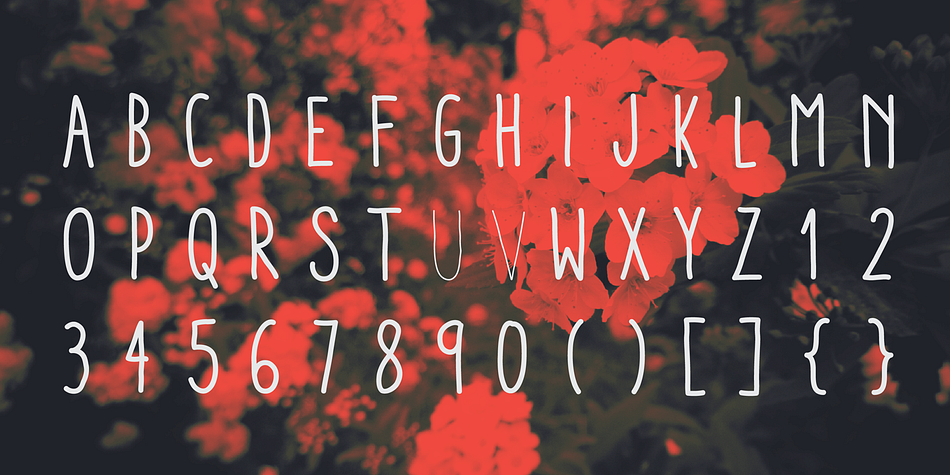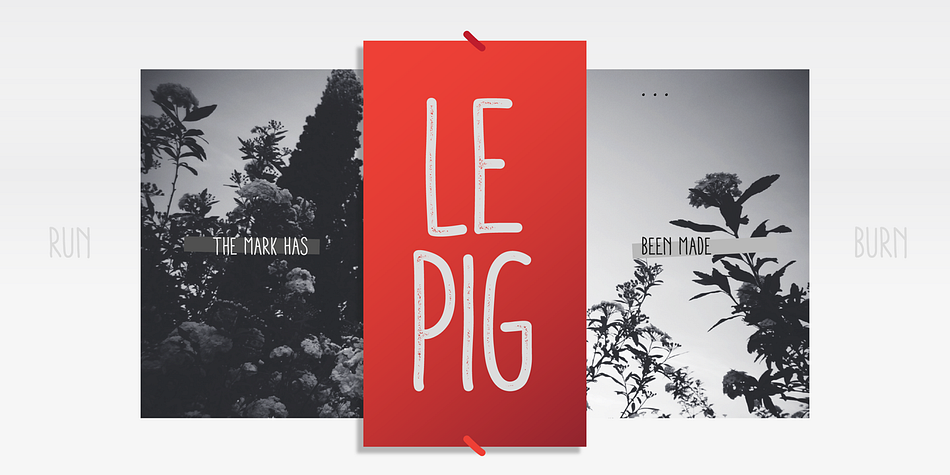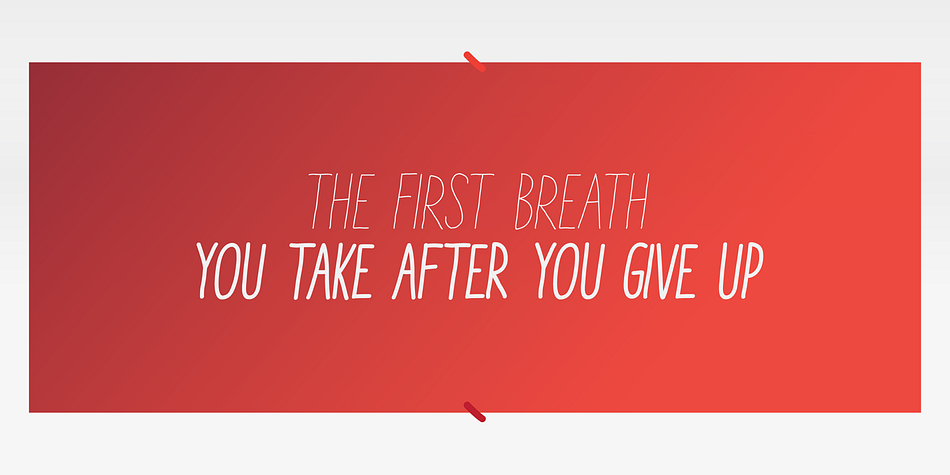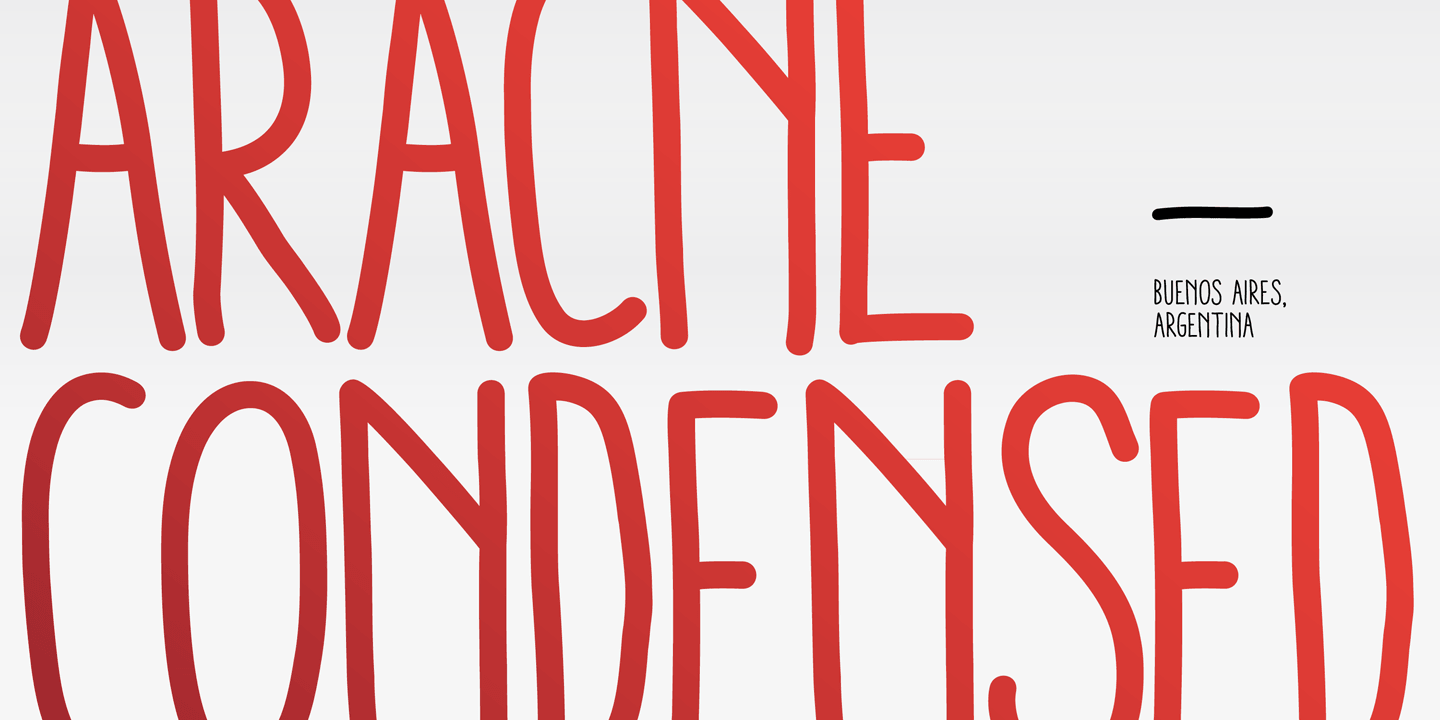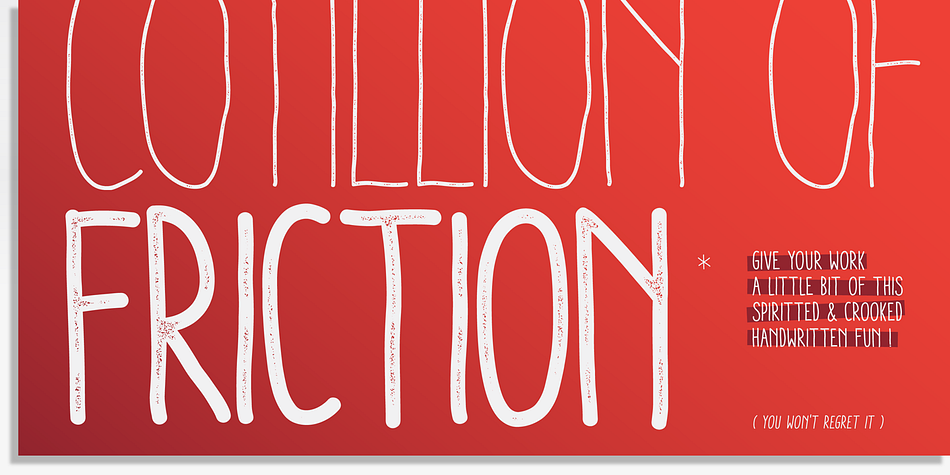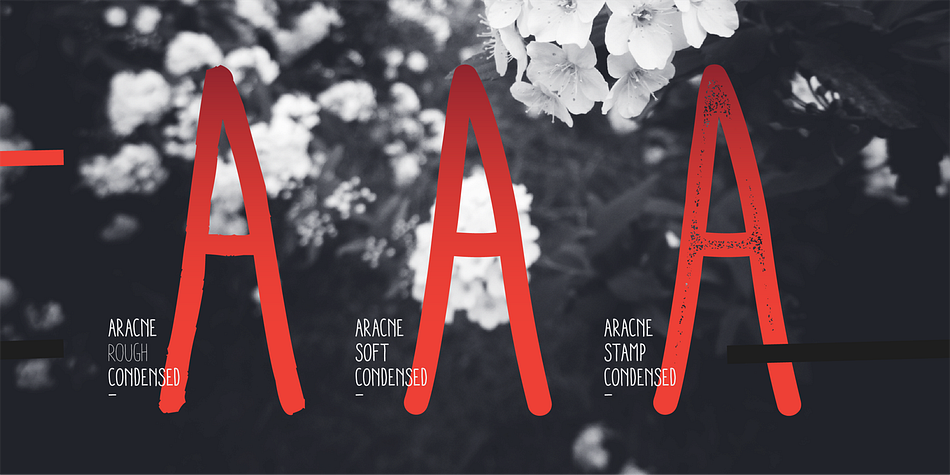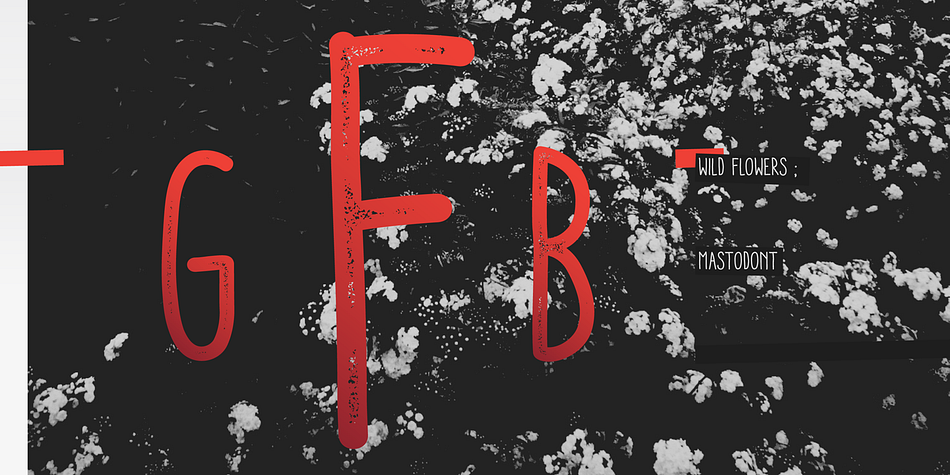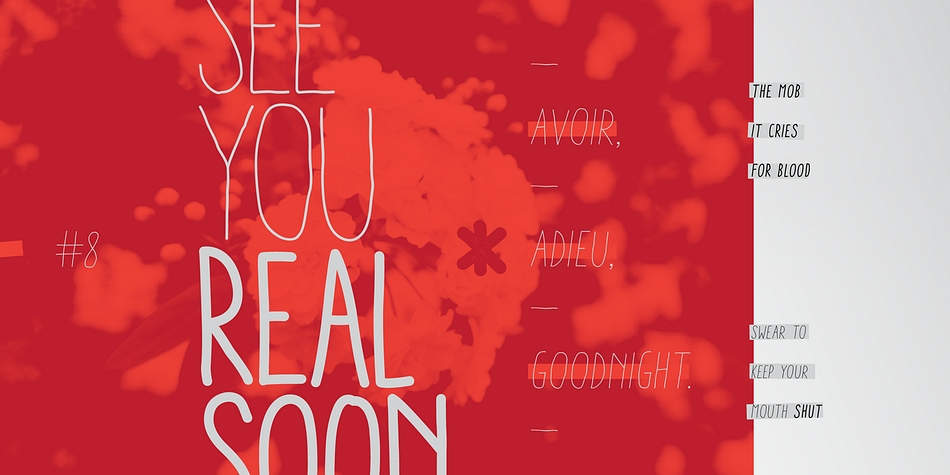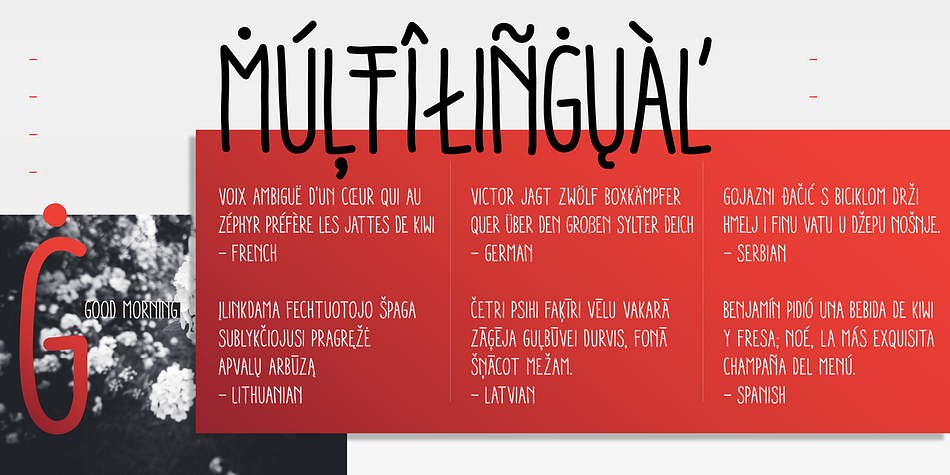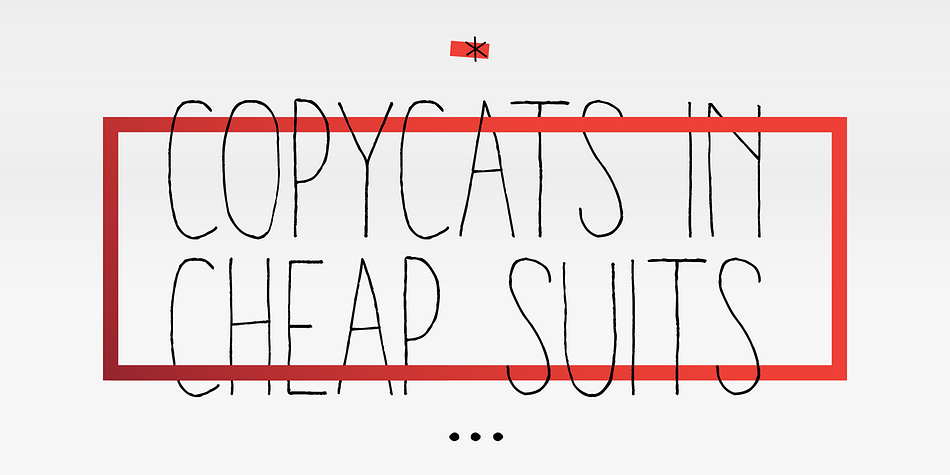
Aracne Condensed is a display and hand display font family. This typeface has twelve styles and was published by Antipixel.
The all-caps Aracne collection features tall, slightly scrawled letterforms, and is available in regular, condensed and ultra condensed styles for maximun functionality. With a spirited quality and casual character, it will add a personal style to your work.
Aracne Condensed was created as an extended version of the font Aracne, a regular full of energy handwritten font, with light and regular styles, including italics. It provides a wide range of possibilities, including the Aracne Soft and Stamp, which offer softer and cleaner edges. Its glyph coverage supports languages such as English, Spanish, French, German, Polish, Czech, among many others. It’s recommended usage is for display titles, and small amount of text, because of its good legibility and quality of glyphs.